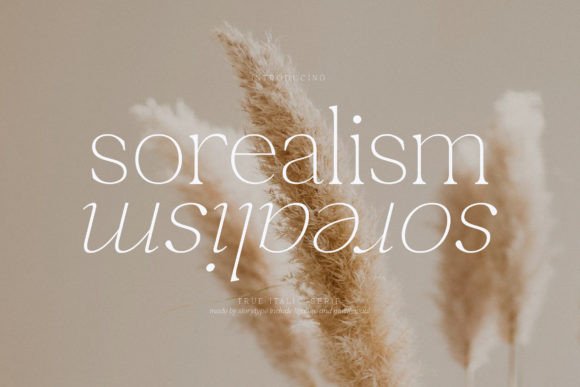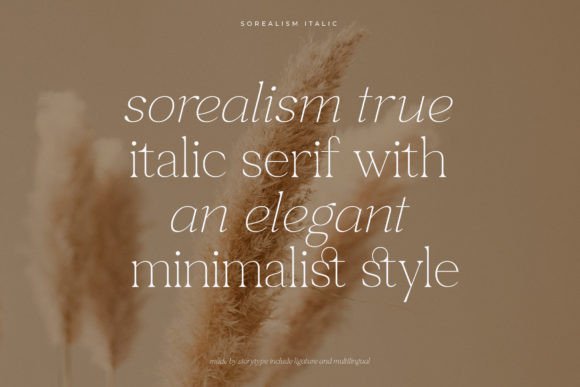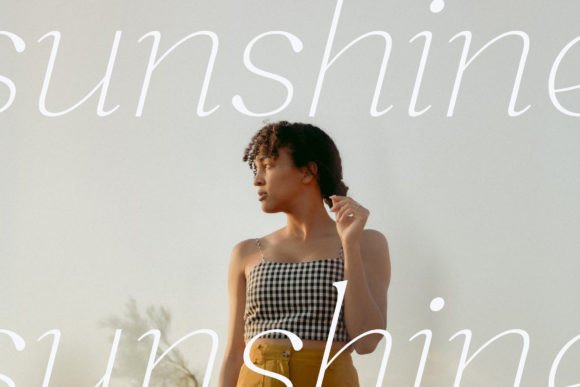
Sorealism Font: Elegant Serif Typography for Modern Logo Design
About the Sorealism Font
Add a touch of class to your work with the Sorealism Font, a truly exceptional typeface. Sorealism is a modern and stylish serif font that has its own unique appearance. This typeface is perfect for an elegant and luxurious logo, fashion brands, magazines, apparel, lettering, quotes, and so much more.
Sorealism Font Usage Examples
Sorealism Font Example